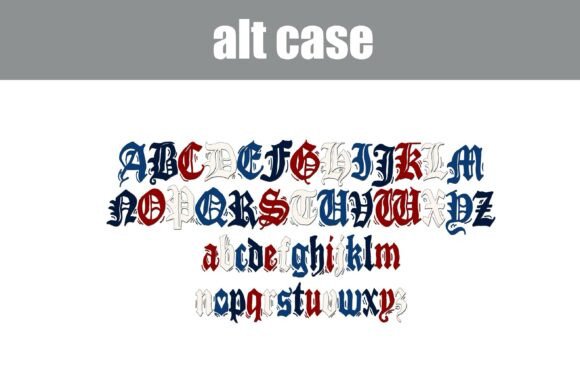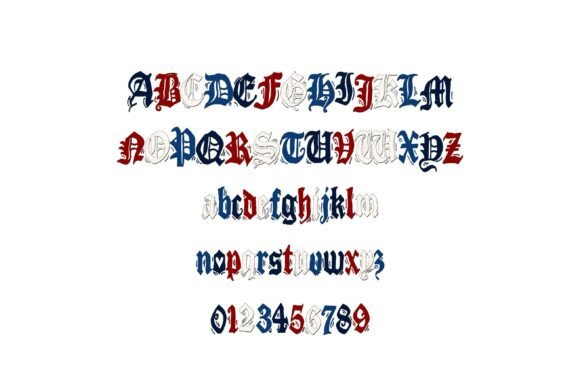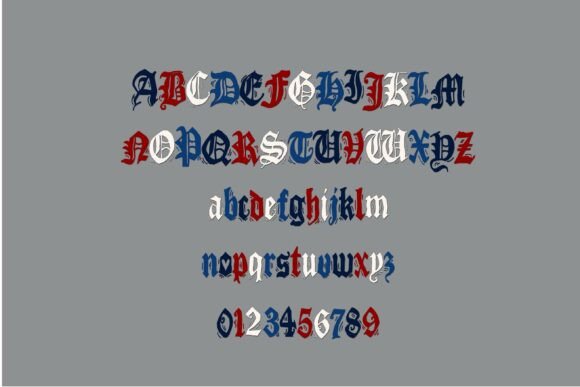
Introduction to Charming Freedom Font
This full-color font features an old fashion calligraphy style font with a bit of bounce in Americana colors.
There is an alt case of alternate colorings of each letter that you can access through your system or Silhouette’s glyph map OpenType full-color (SVG) fonts are installed like any normal .